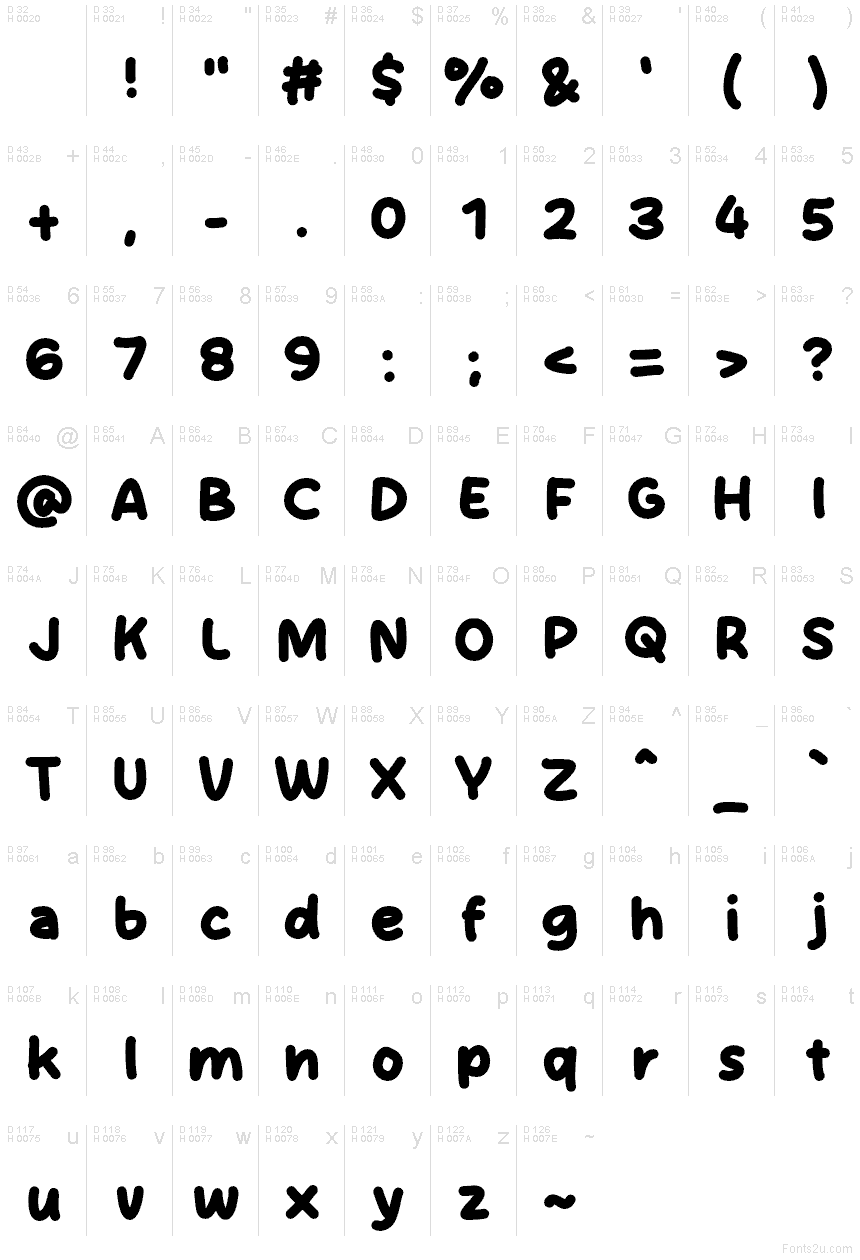
Milky Juice
Milky Juice font by MJType is a bold handwritten font with friendly rounded letters that project an approachable feel. The thick casual style of this interesting font is not packed tight leaving room for more legibility than usual while still maintaining the necessary modern appearances needed in contemporary publishing applications.
Use Milky Juice in signage, greeting cards, social media posts, movie titles, magazines, and book covers. This free handwritten font will make wonderful wedding invitations and calligraphy quotes. It can be used to highlight children’s books or educational TV shows for children among other artistic tasks.